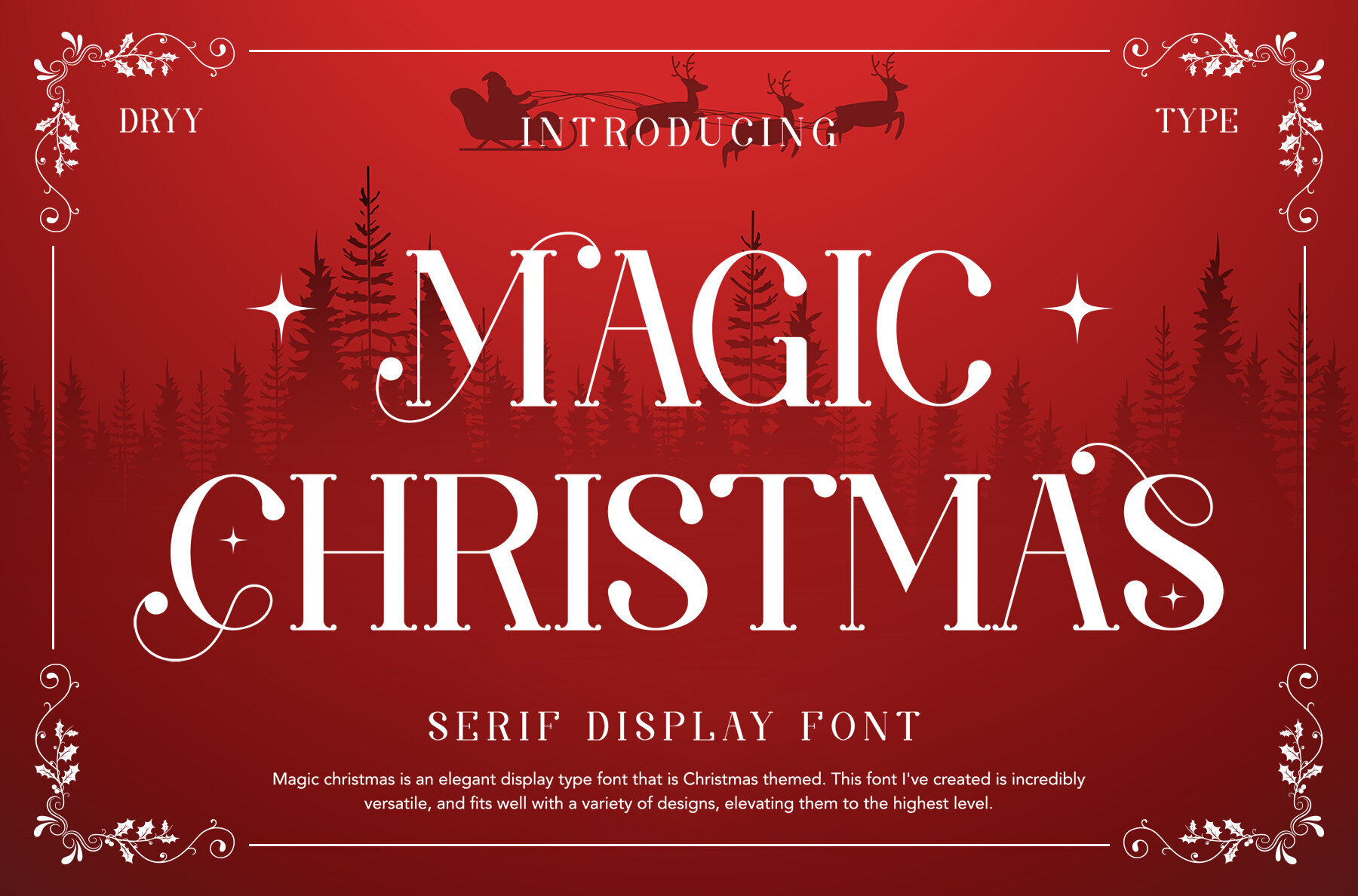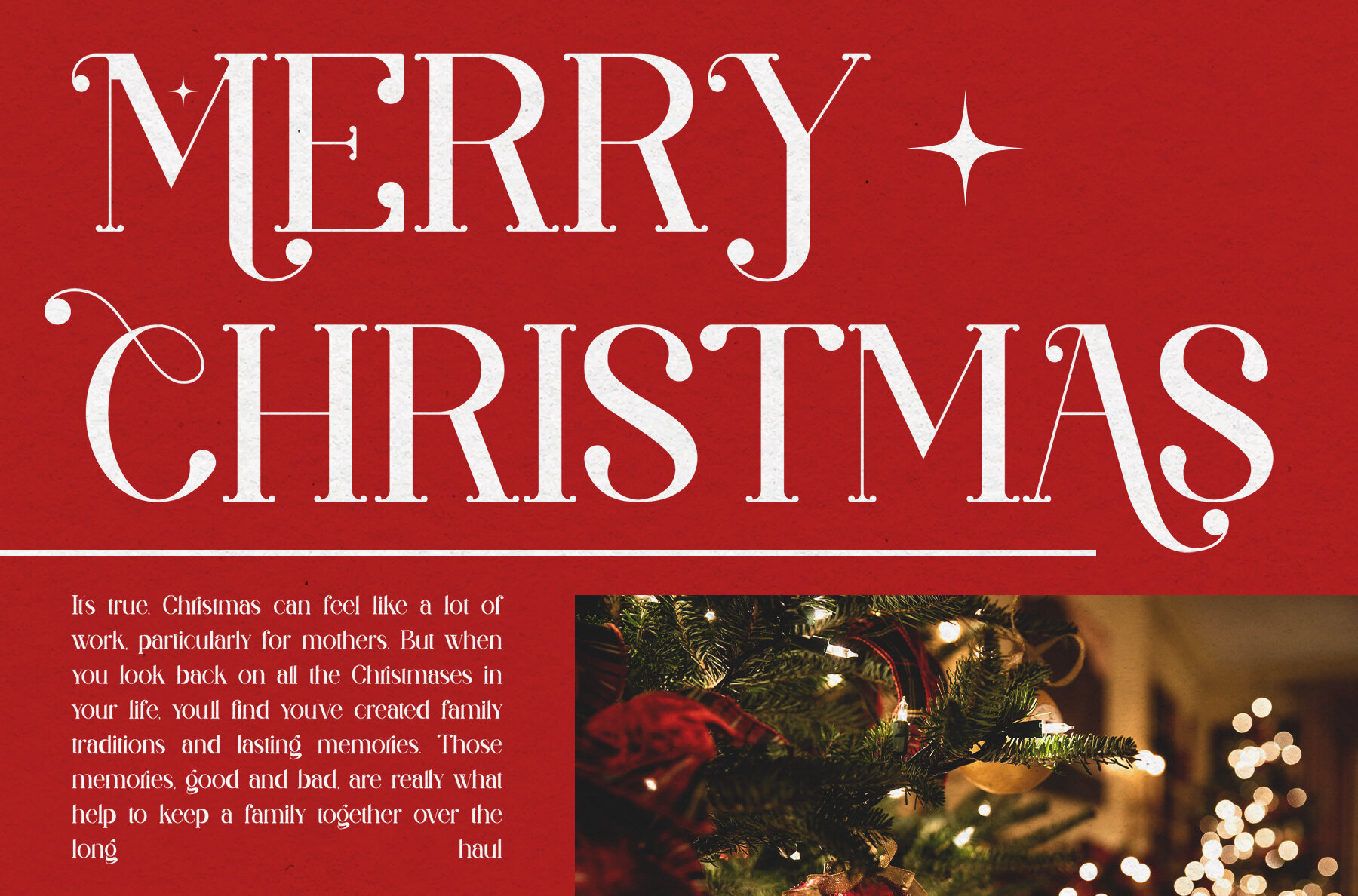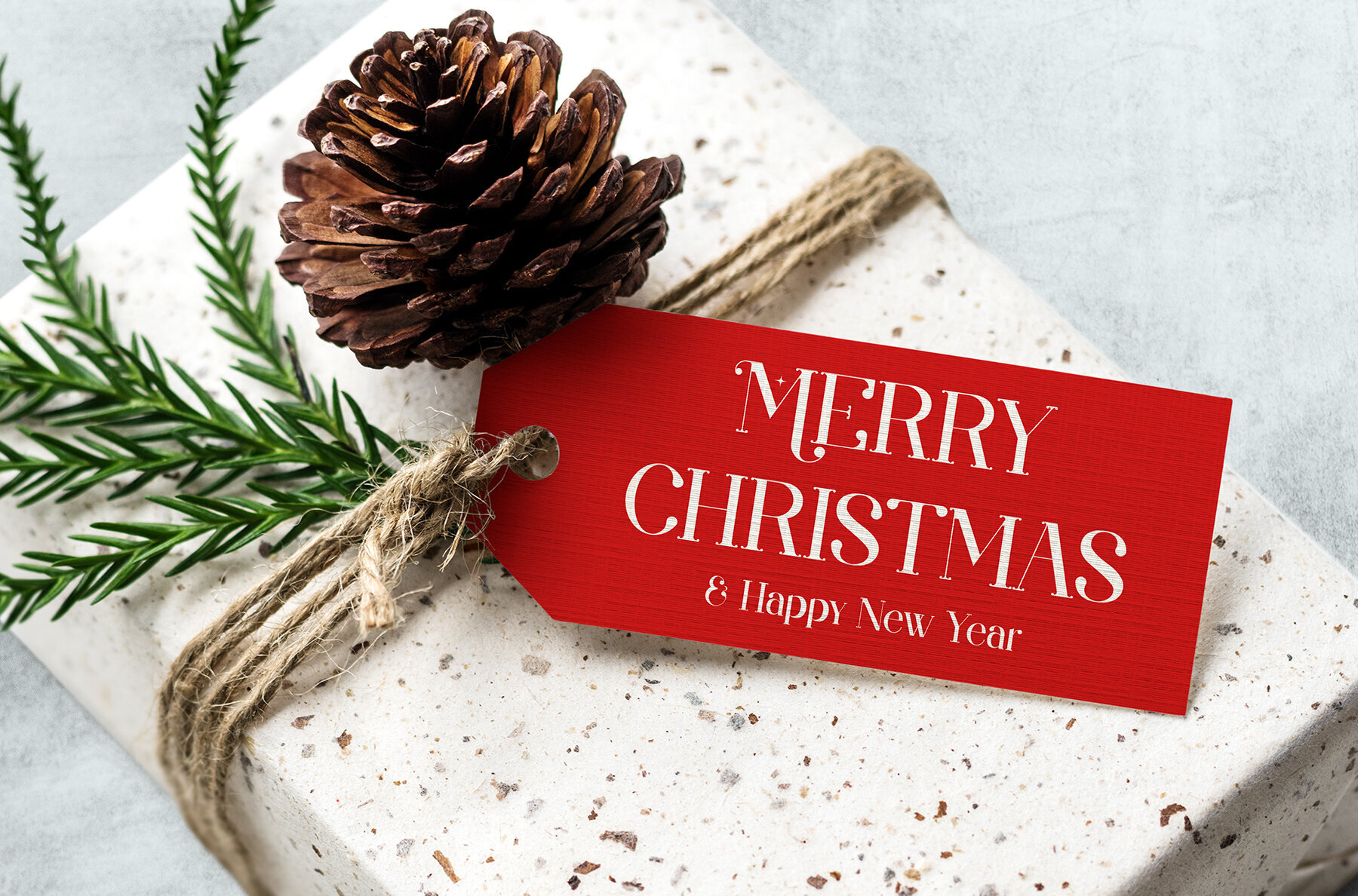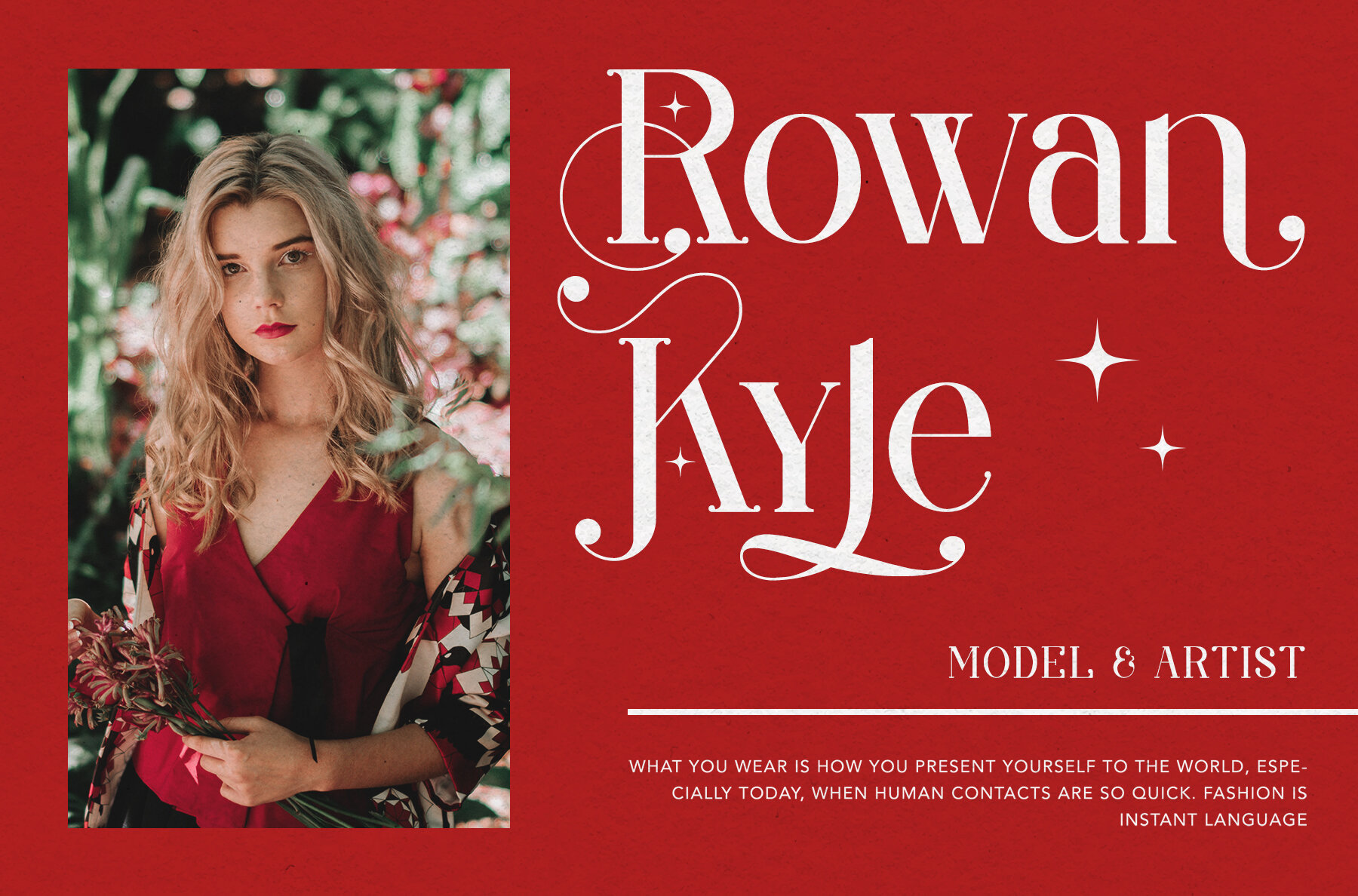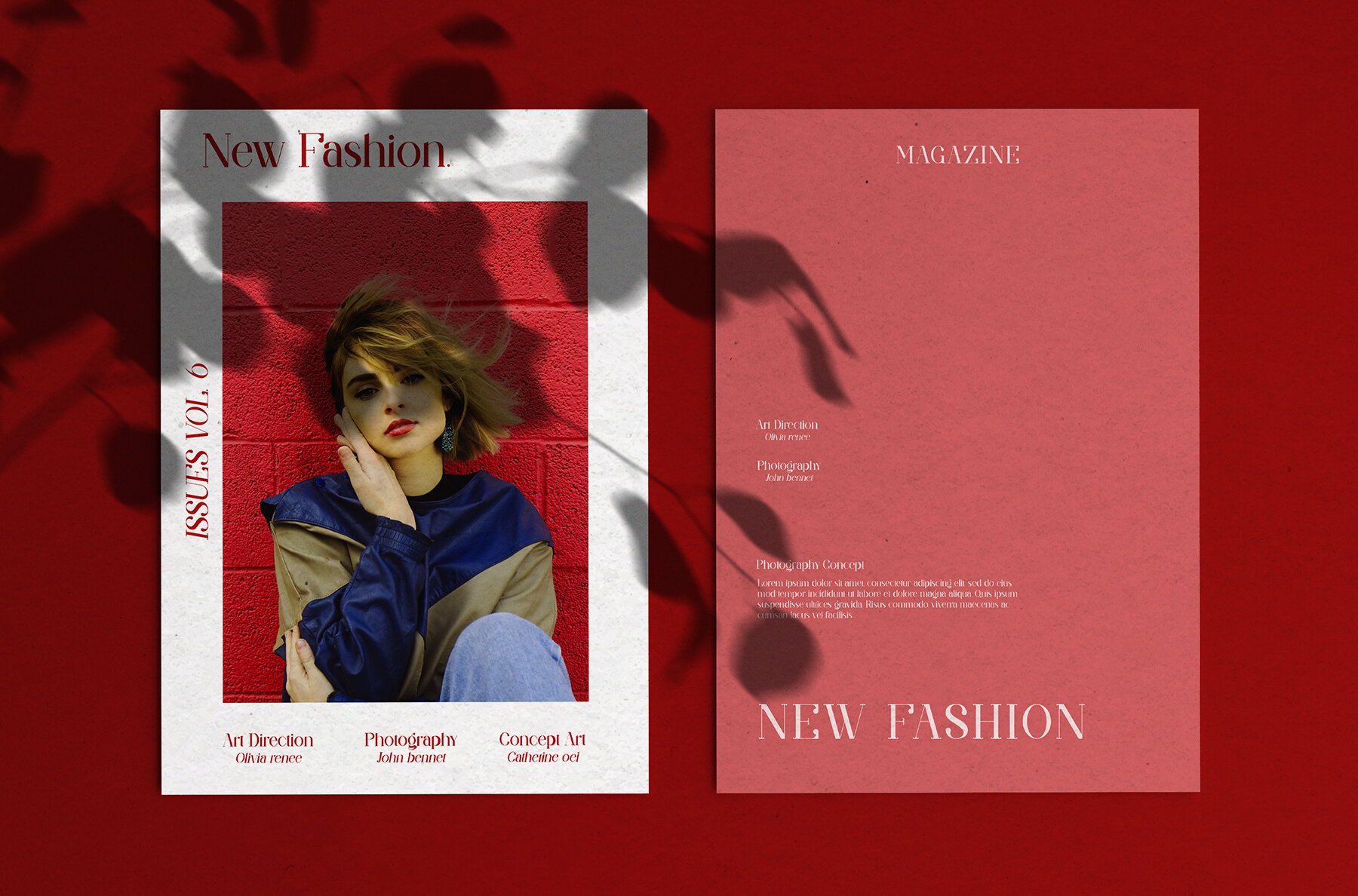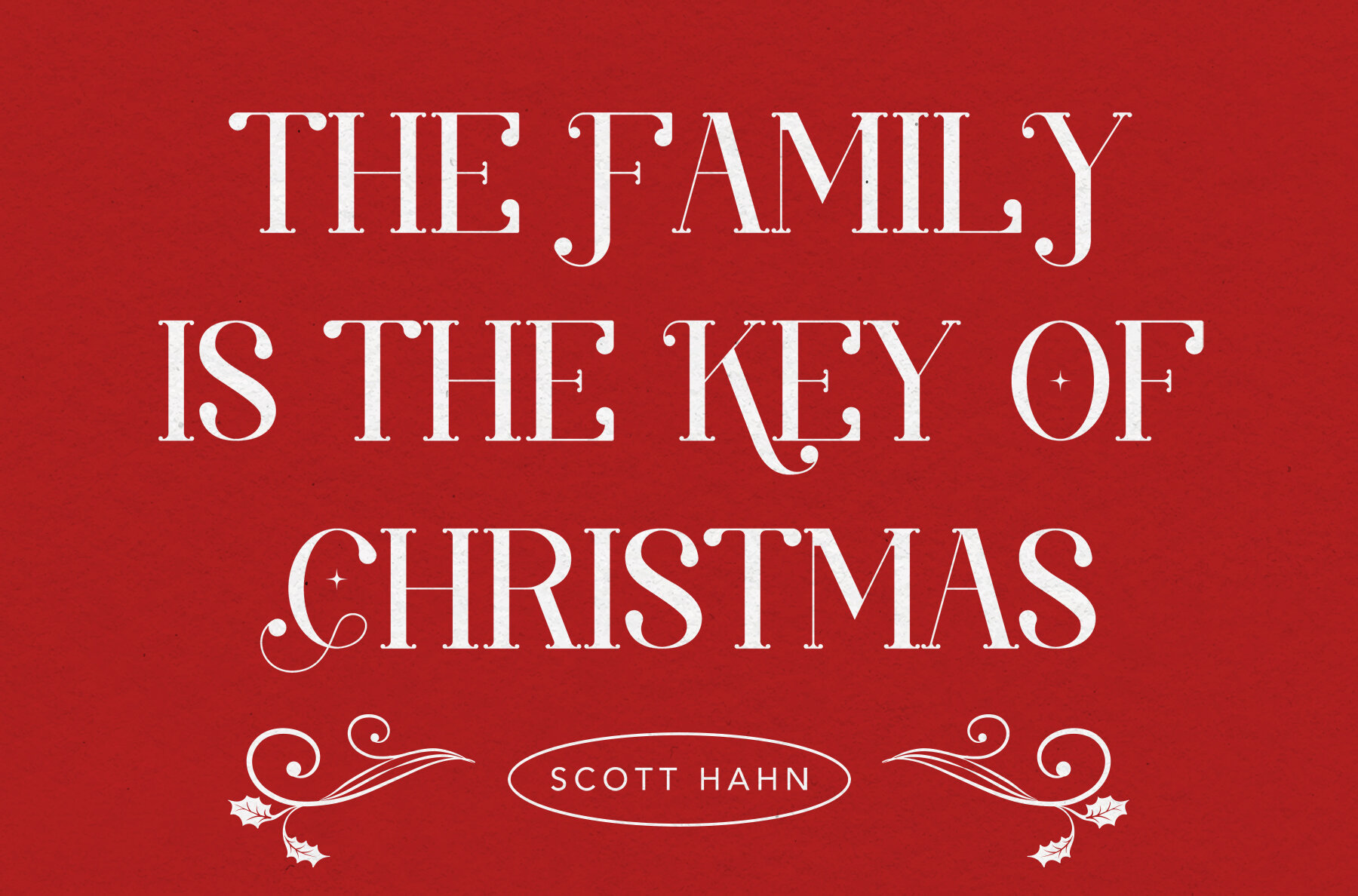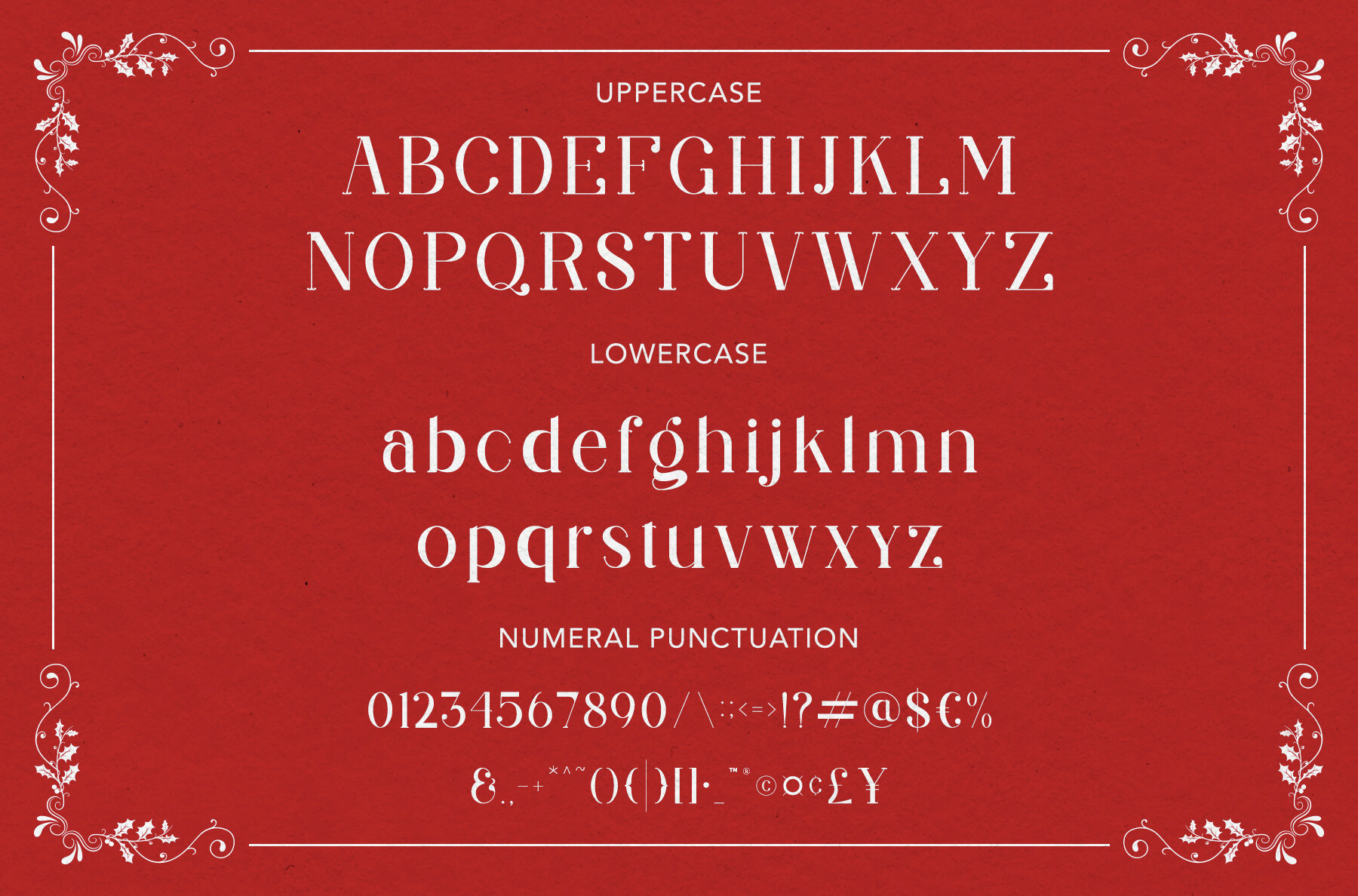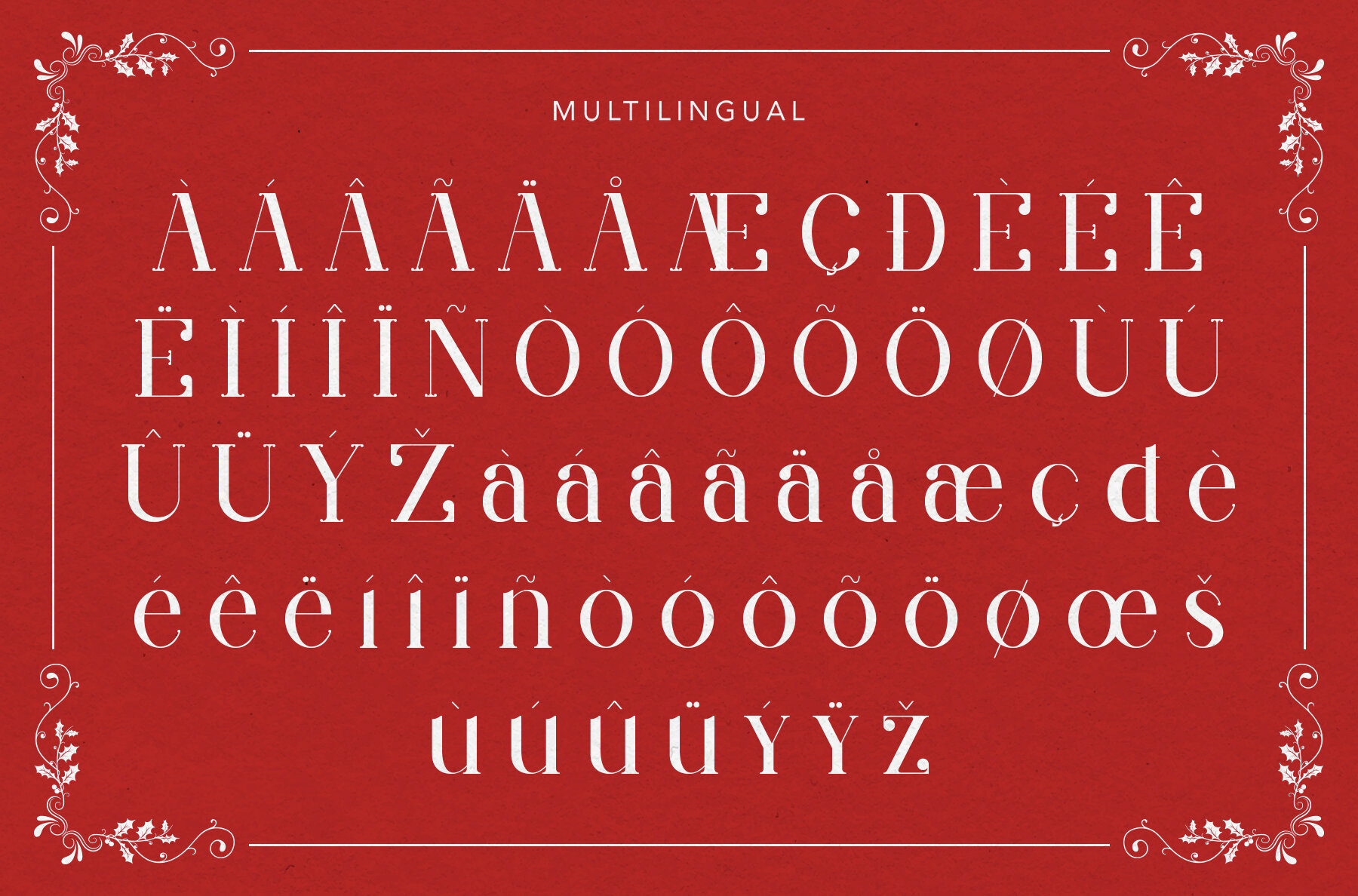
Magic Christmas Font
Magic Christmas
Magic Christmas is a refined serif display font imbued with a unique character, perfect for holiday-themed designs. This versatile font adapts seamlessly to a range of creative projects, adding a touch of elegance to your work. It’s particularly suitable for festive greeting cards, seasonal advertisements, and decorative elements.
This font includes uppercase and lowercase letters, numeral punctuation, alternates, ligatures, and multilingual support, providing you with extensive design flexibility. Incorporate Magic Christmas into your favorite creative ideas and witness how it enhances the aesthetic appeal of your projects.